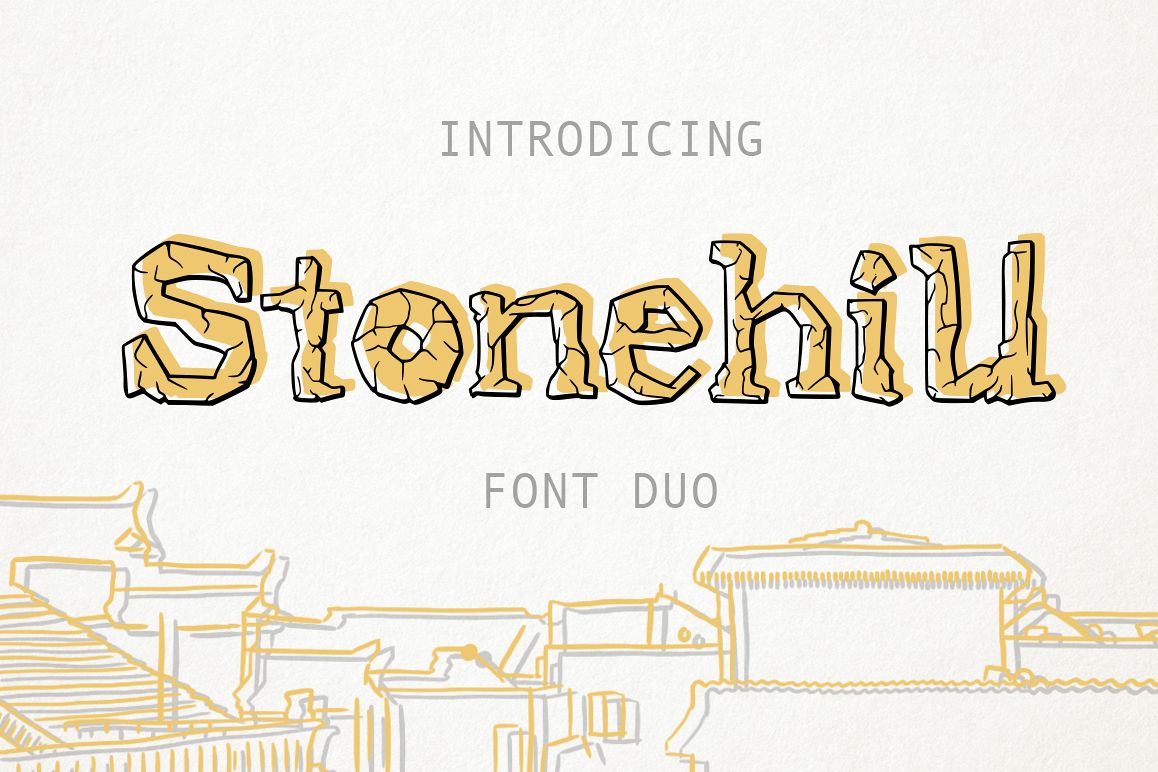
Stonehill Duo Font.
Hi guys! I'm happy to introduce you Stonehill Duo Font.
The product includes 2 fonts
.- The letters of the first font are outline and have hand painted stone texture. They are very decorative and detailed.
- The second font, of the collection, is the same shape of the letter of the same color, without a stone texture inside. The second font resembles texts in old newspapers that were printed on old typewriters. It has amazing vintage feel.
Together, these two fonts are an amazing tool for unique typography. You can duplicate the text and apply a decorative font on top, replace the color, slightly move one font relative to another and get something unfaithful.
“Stonehill” are fully handdrawn, PUA Unicoded fonts with double letter ligatures and multilingual support, which include Western European, Central European and South Eastern European languages. Please type characters in text box below to check any characters you need.